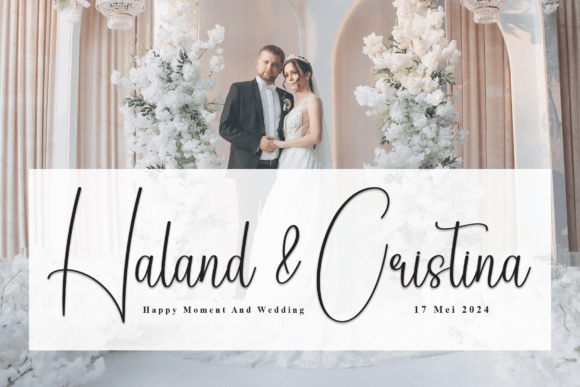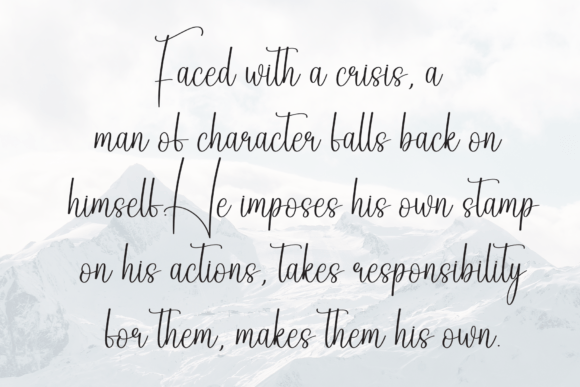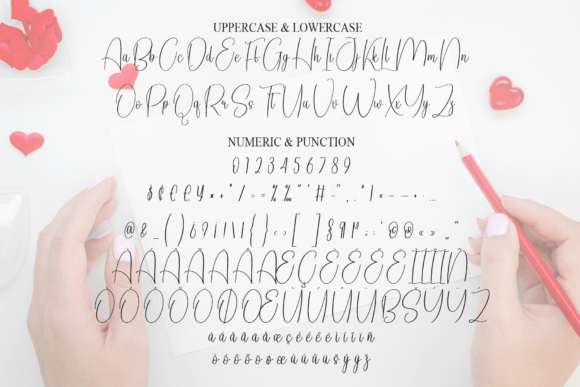
Valentine Signature Font
The Valentine Signature font is a beautiful, handwritten style that looks elegant and fancy. It has smooth, flowing letters that resemble a stylish personal signature, perfect for adding a touch of romance to your designs.